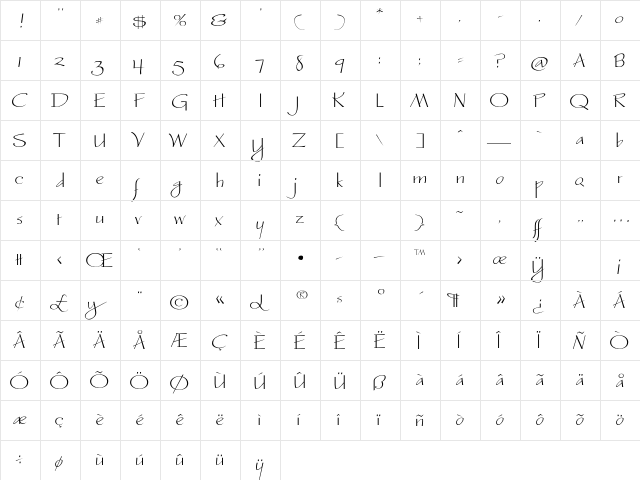
DalyText Roman
Design Context for DalyText Typeface
DalyText takes a measured approach to typography — its balanced proportions and neutral character make it a reliable workhorse for both digital and print work.
Pro Tip: Use DalyText in both headline and body roles to test its range before committing to a single application.